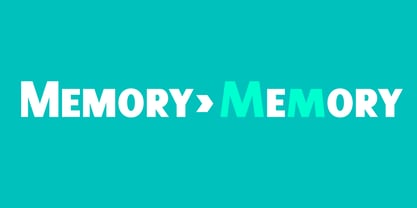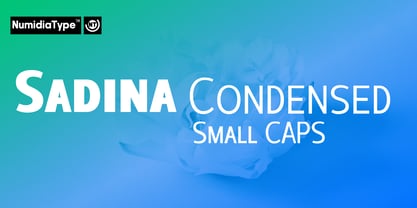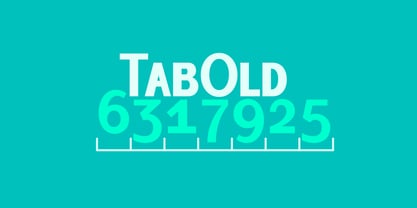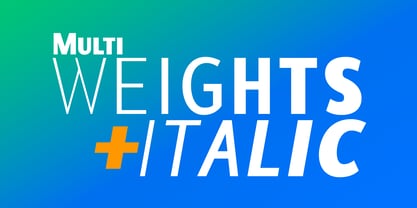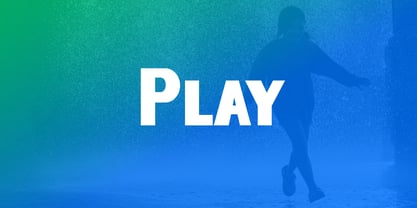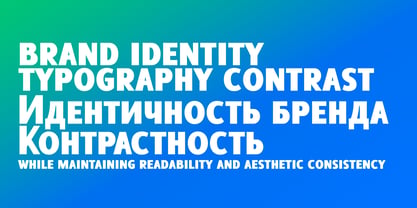
Sadina Condensed Small CAPS
The Sadina Condensed Small CAPS Font Family was designed by Yassine Abdi and published by NumidiaType. Sadina Condensed Small CAPS contains 14 styles and family package options. More about this family
Sadina™ Condensed Small CAPS is a refined and flexible sans serif typeface that extends the Sadina Condensed family into a sophisticated small CAPS system, preserving the clean geometry, precision, and condensed proportions of the original while introducing carefully crafted small capitals that integrate seamlessly with lowercase letters. Designed for clarity and elegance, it offers 7 weights from Thin to Black with matching italics, delivering 14 styles optimized for both display and text use. With over 20 advanced OpenType features including stylistic alternates and ligatures, oldstyle and lining figures, tabular figures, fractions, subscripts and superscripts, contextual alternates, and intelligent kerning it provides exceptional typographic control for editorial, branding, web, UI, and technical applications. Its condensed structure makes it ideal for space sensitive layouts such as headlines, navigation, logos, and data driven designs, while its modern, slightly formal character conveys strength, professionalism, and contemporary refinement, making Sadina™ Condensed Small CAPS a powerful and flexible typographic toolkit for high end design projects.